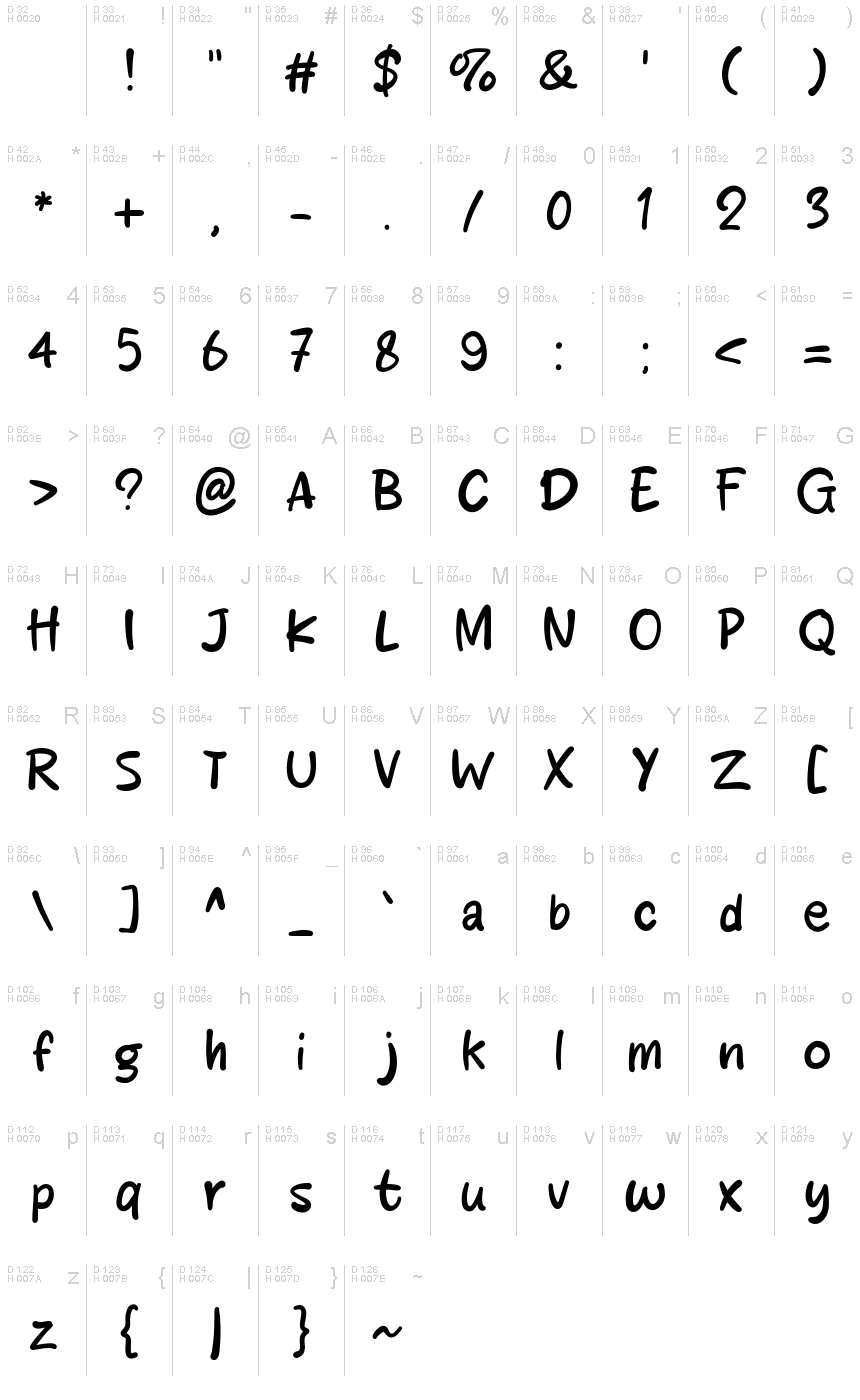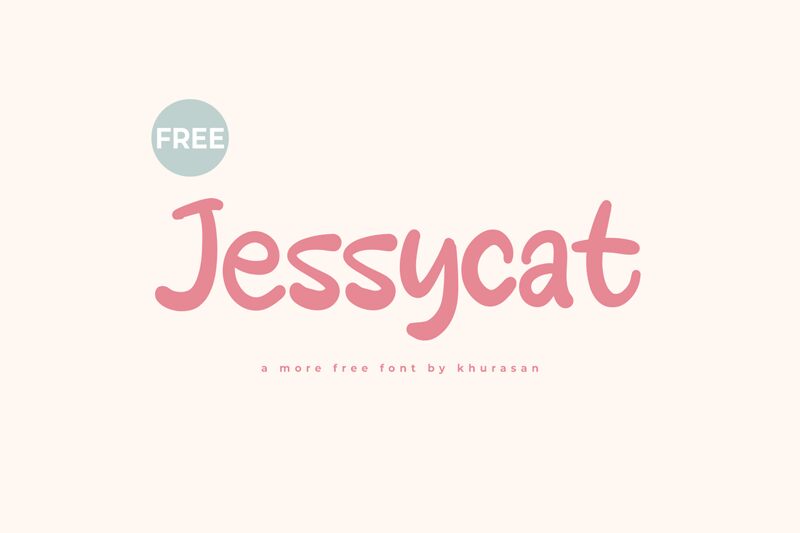
Jessycat
Jessycat, designed by Khurasan, is a playful and dynamic display font that captivates with its cartoon style. Its friendly curves and bouncy characters exude a sense of fun and creativity, making it an ideal choice for projects that aim to be lighthearted and accessible. The font's pronounced roundness and jovial personality lend themselves perfectly to children's books, party invitations, or any design work where a touch of whimsy is desired.
In terms of use cases, Jessycat shines in environments that call for visual storytelling or a casual tone. Whether it's branding for family-friendly businesses, engaging social media graphics, or eye-catching posters for events, this font adds a cheerful spirit to words that demand attention. Jessycat's distinctive charm ensures it will leave an impression of warmth and joy wherever it appears.